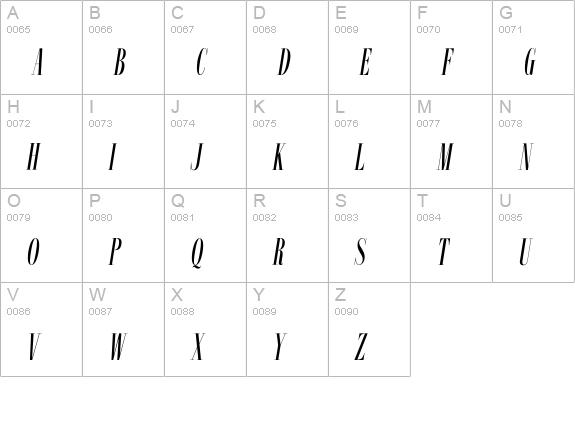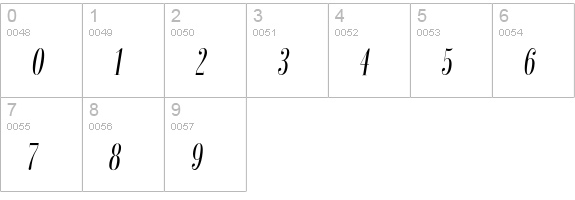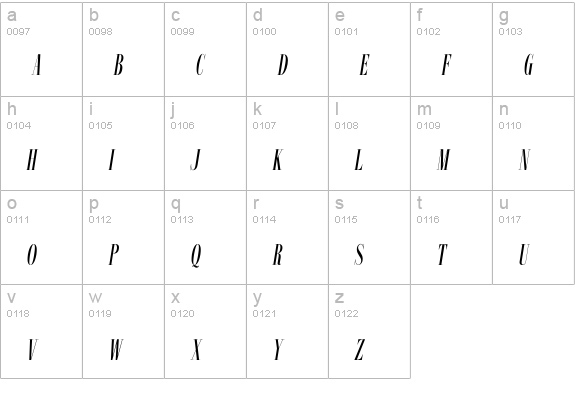
ImprimeurNouveauEF-Obl Font Details
Introducing ImprimeurNouveauEF-Obl, a striking and elegant font that is perfect for adding a touch of sophistication to your designs. With its unique blend of classic and modern elements, this font exudes a timeless charm that will captivate your audience. ImprimeurNouveauEF-Obl is meticulously crafted to ensure legibility and readability, making it an ideal choice for various design purposes. Whether you are creating logos, branding materials, posters, or invitations, this font will elevate your designs to new heights. What makes ImprimeurNouveauEF-Obl even more appealing is that it is free. Yes, you read that right - this font is freely available to download at FontsMarket.com. You can now access this remarkable font without any cost, allowing you to explore its endless possibilities without breaking the bank. Its sleek and slender letterforms, combined with its subtle curves and precise angles, create a harmonious visual experience. ImprimeurNouveauEF-Obl effortlessly combines elegance and versatility, making it suitable for both formal and informal designs. Its clean lines and balanced proportions ensure that your message is delivered with clarity and impact. The attention to detail in ImprimeurNouveauEF-Obl is truly remarkable. Each character is meticulously designed, ensuring consistency and fluidity throughout your projects. The elegant serifs and refined strokes add a touch of sophistication, while the generous spacing allows for easy readability. ImprimeurNouveauEF-Obl is a font that effortlessly stands out from the crowd. Its uniqueness and versatility make it a valuable addition to any designer's toolkit. So why wait? Visit FontsMarket.com today and freely download ImprimeurNouveauEF-Obl to unlock a world of creative possibilities.